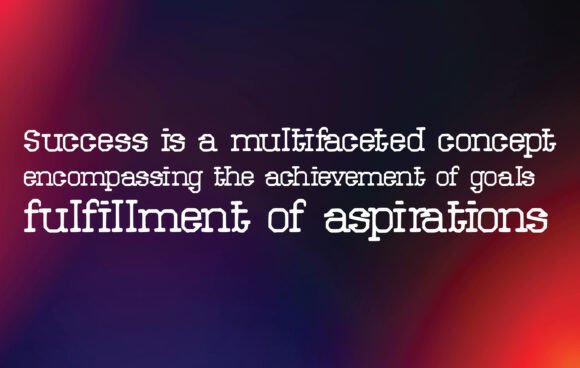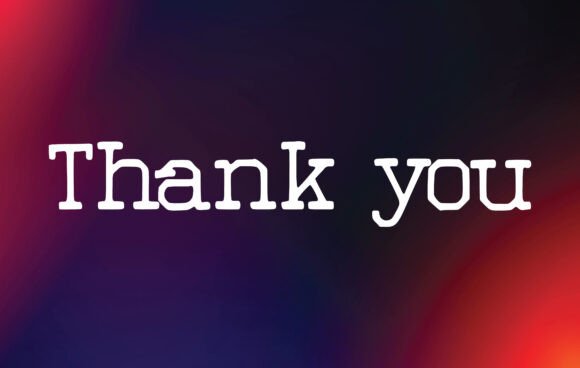
Benson Font: Elevate Your Creative Projects with Elegance and Sophistication
Benson is a stunning font that has the power to transform your creative ideas into visually appealing designs. With its unique and captivating style, Benson is the perfect choice for designers and crafters looking to add a touch of elegance and sophistication to their projects. In this article, we’ll explore the features and benefits of Benson font, and how it can help take your designs to the next level.
The Beauty of Benson Font
Benson font is a masterpiece of typography, boasting a distinctive and beautiful design that sets it apart from other fonts. Its elegant lines, curves, and shapes make it a joy to use in a variety of creative projects. Whether you’re designing a logo, branding materials, or quotes, Benson font is sure to impress. Its unique style is both modern and classic, making it versatile enough to work well in a range of contexts.
Unleash Your Creativity with Benson Font
Benson font is more than just a pretty face – it’s a powerful tool for creative expression. With Benson, you can add a touch of sophistication and elegance to your designs, making them stand out from the crowd. Whether you’re a professional designer or a crafty DIY enthusiast, Benson font is the perfect choice for anyone looking to elevate their creative projects. Its versatility and beauty make it an excellent addition to any design toolkit.
Benson font is particularly well-suited for creating eye-catching logos, branding materials, and quotes. Its unique style and elegant lines make it perfect for adding a touch of sophistication and elegance to your designs. With Benson, you can create stunning logos that capture the essence of your brand, and branding materials that leave a lasting impression. Additionally, Benson font is ideal for creating inspirational quotes that are both visually appealing and thought-provoking.
Why Choose Benson Font?
So, why choose Benson font for your creative projects? Here are just a few reasons why Benson stands out from the crowd:
- Unique and Beautiful Design: Benson font boasts a distinctive and beautiful design that sets it apart from other fonts.
- Elegant and Sophisticated: Benson font adds a touch of elegance and sophistication to any design, making it perfect for high-end branding and creative projects.
- Versatile: Benson font is versatile enough to work well in a range of contexts, from logos and branding to quotes and more.
- Easy to Use: Benson font is easy to use and pairs well with a variety of other fonts, making it a great addition to any design toolkit.
Tips for Using Benson Font
Here are a few tips for getting the most out of Benson font:
- Use it sparingly: Benson font is a powerful design element, so use it sparingly to avoid overwhelming your design.
- Pair it with complementary fonts: Benson font pairs well with a variety of other fonts, so experiment with different combinations to find the perfect look for your design.
- Experiment with different sizes and colors: Benson font looks great in a range of sizes and colors, so don’t be afraid to experiment and find the perfect look for your design.